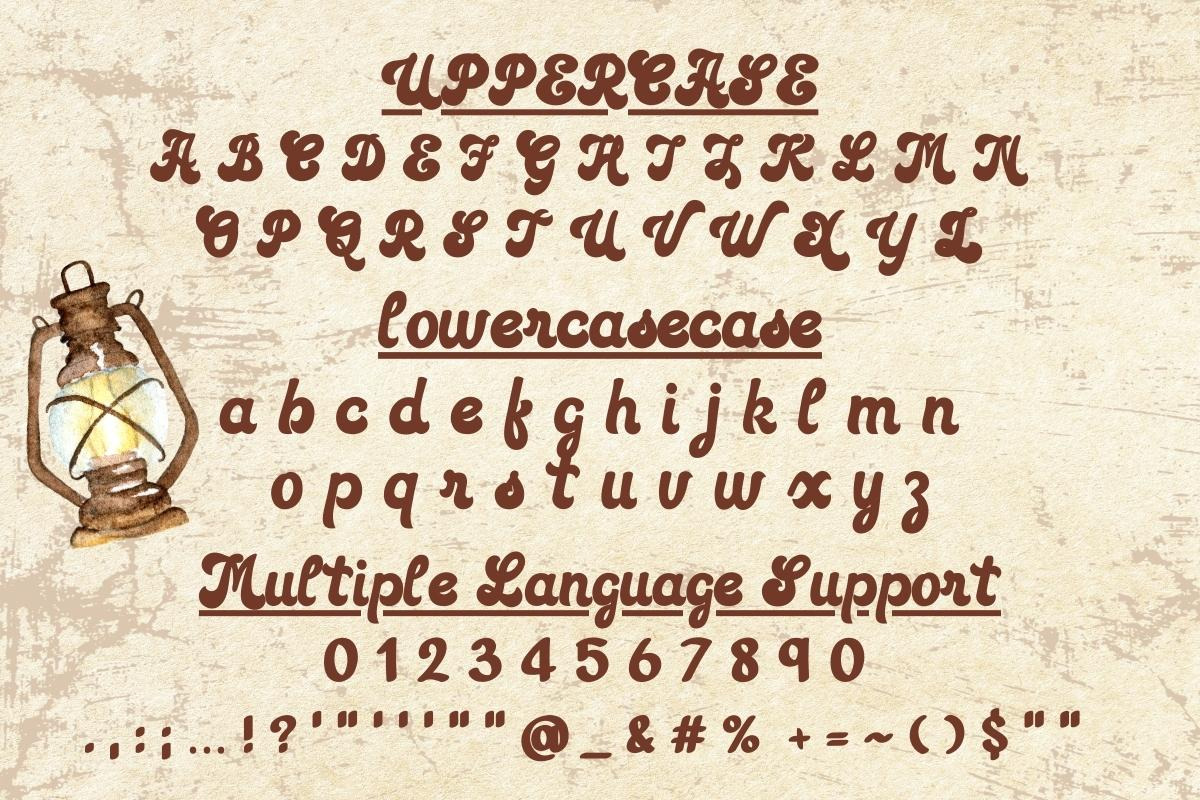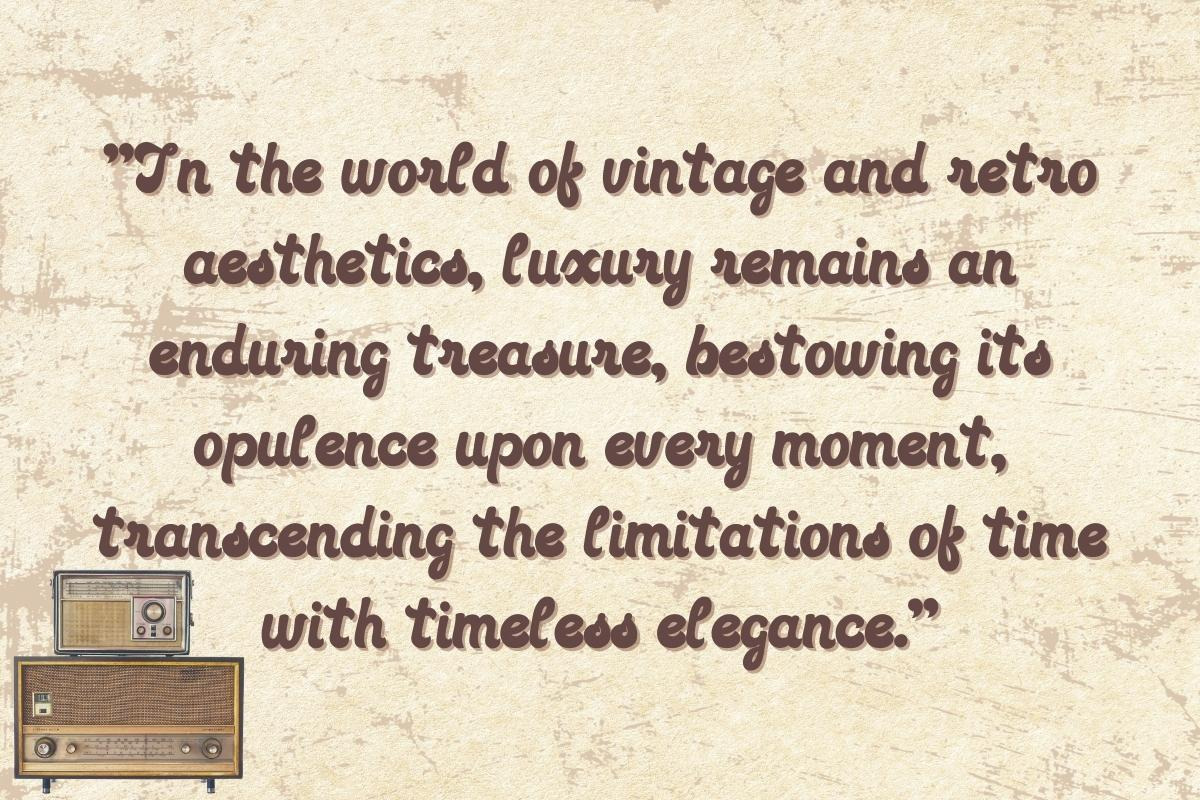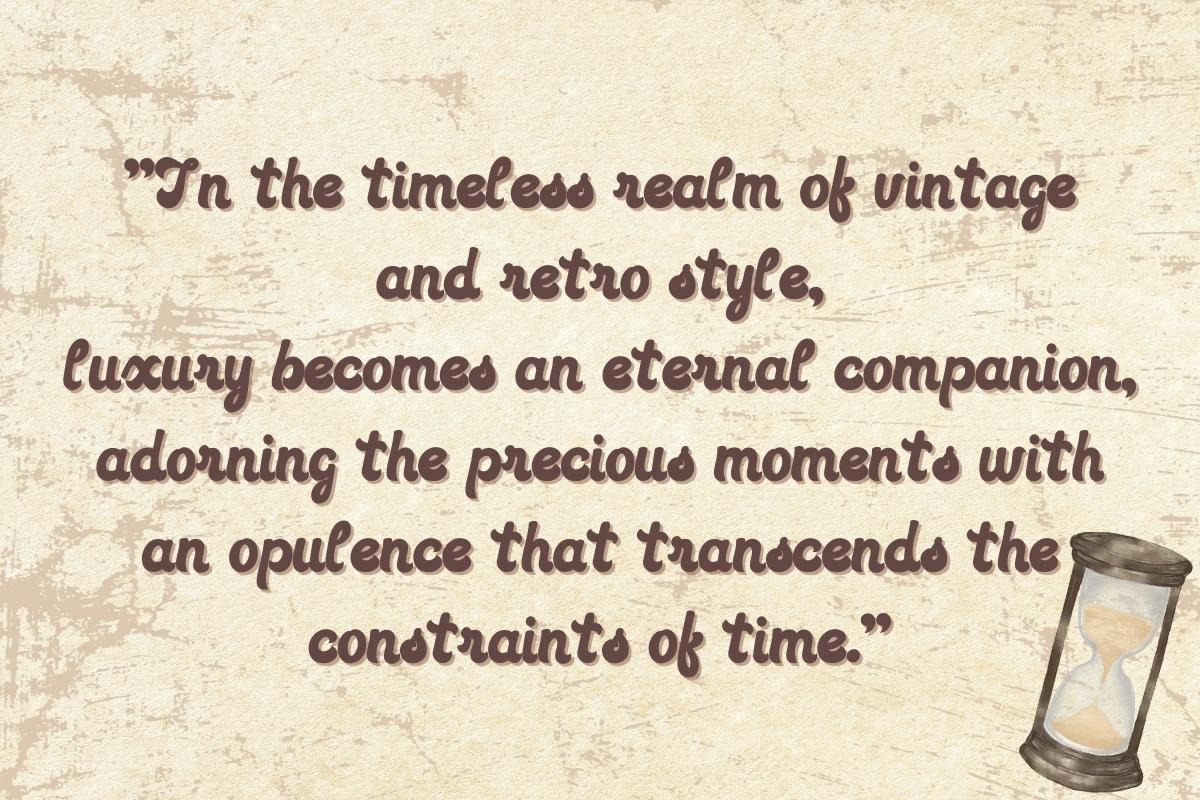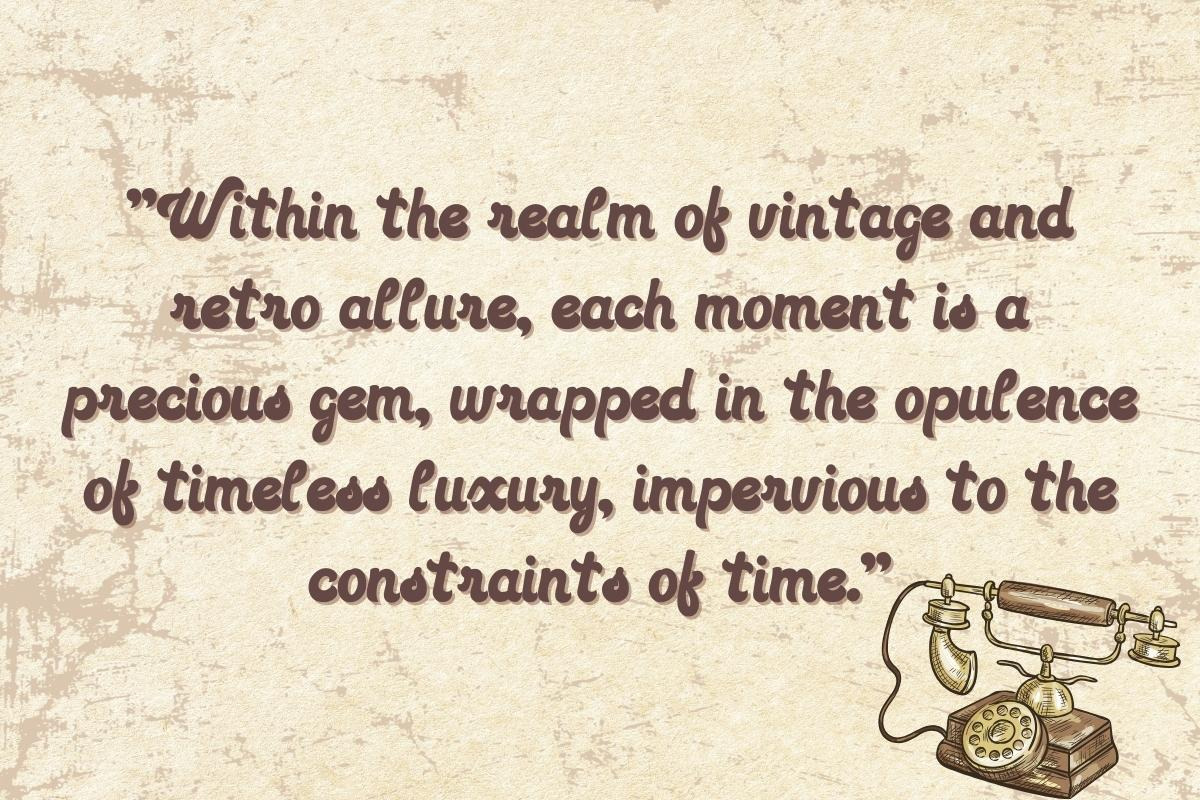
Vintage Retro - Handwritting
"In the realm of design, the vintage retro font stands as a timeless embodiment of precious elegance, gracefully transcending the constraints of time with its enduring allure."